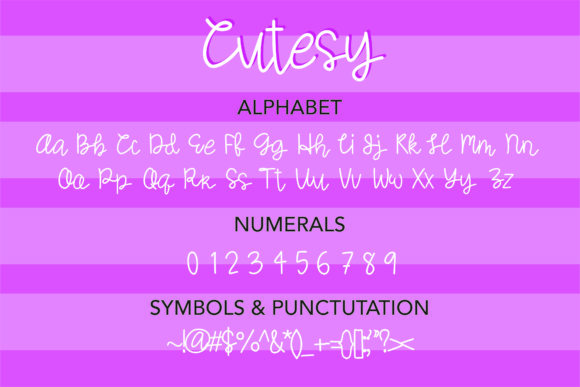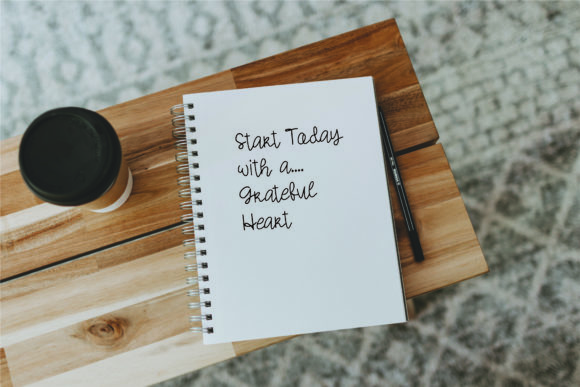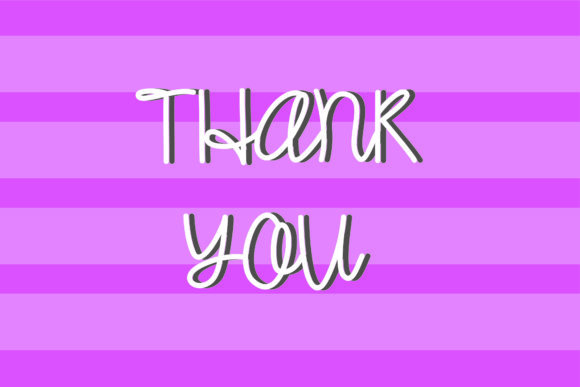
About Cutesy Font
Introducing “Cutesy,” a dainty and thin lettered script font that will add a touch of elegance and charm to your designs. With its natural and unique style, this font is incredibly versatile and suitable for a wide range of design projects.
The delicate and thin letterforms of Cutesy exude grace and sophistication. Whether you’re working on wedding invitations, greeting cards, logos, branding materials, or any other design that needs a personalized touch, Cutesy is the perfect choice. Its subtle curves and flowing lines create a beautiful and harmonious look that is pleasing to the eye.
The versatility of Cutesy allows it to adapt to various design themes and concepts. From romantic and whimsical to modern and minimalistic, this font can enhance any creation with its elegant and refined aesthetic. Its thin strokes and graceful letterforms make it ideal for adding a touch of femininity and delicacy to your designs.
The beauty of Cutesy lies not only in its appearance but also in its ease of use. The font is designed to be user-friendly, allowing you to effortlessly incorporate it into your projects. Its natural and unique style brings an authentic and personal feel to your designs, making them stand out and leave a lasting impression.
Let your imagination run wild with Cutesy. Experiment with different lettering styles, combinations, and layouts to create stunning compositions. With Cutesy, the possibilities are endless, and you have the freedom to create designs that truly reflect your vision.
In summary, Cutesy is a dainty and thin lettered script font that adds elegance and charm to your designs. Its versatility and unique style make it suitable for a wide range of projects, allowing you to explore and create without limitations. Let Cutesy be your go-to font for adding a touch of grace and sophistication to your design work.